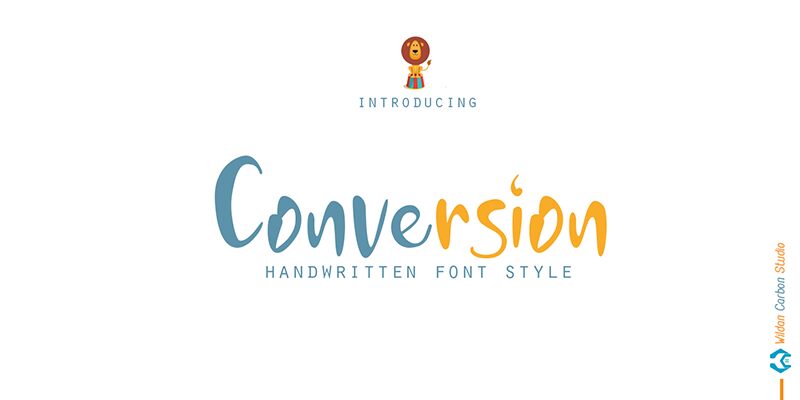
Conversion (Demo)
Conversion, a mesmerizing script font by Wildan Type, brings elegance and sophistication to your projects.
Its graceful curves and fluid strokes elevate any design, making it ideal for wedding invitations, feminine branding, and fashion editorials. The semi-bold font weight adds a touch of modernity while maintaining its classic charm. Whether you're designing luxury packaging or creating captivating social media graphics, Conversion effortlessly captivates the viewer's attention.
With its versatile nature and timeless appeal, this typeface is the perfect choice for adding a touch of refinement to your creative endeavors.